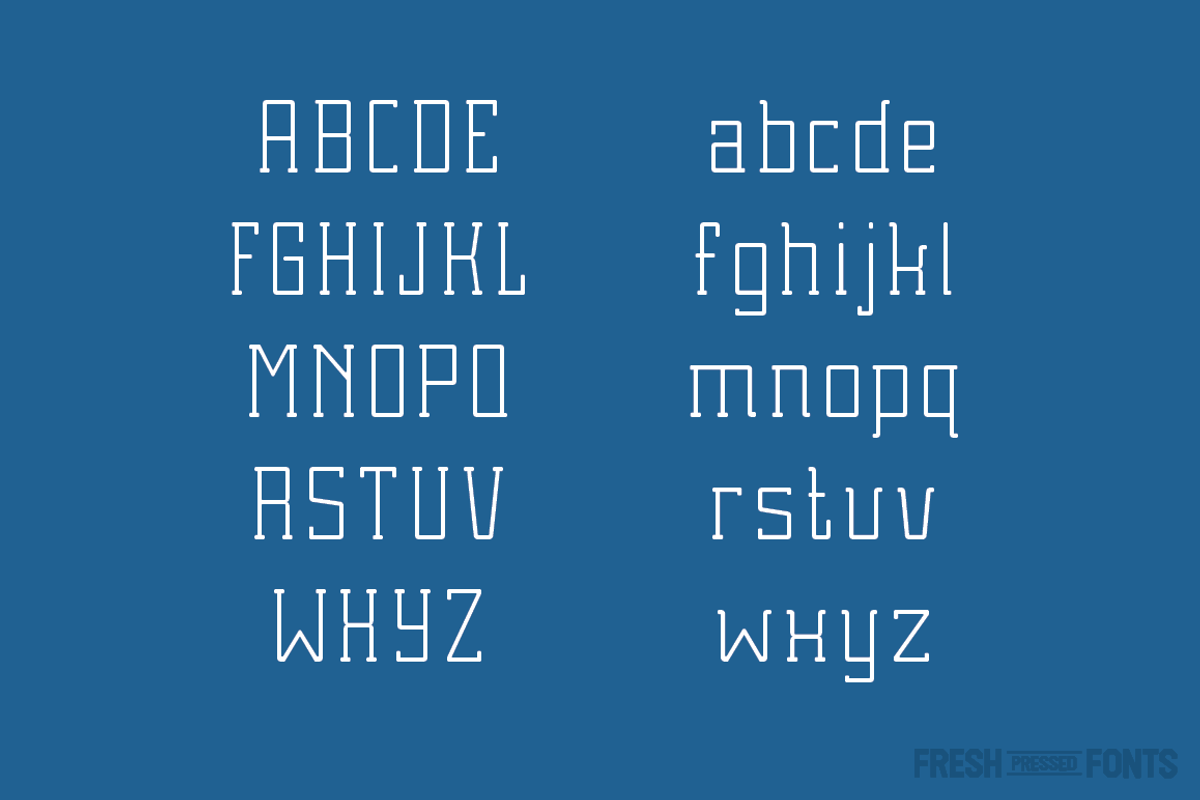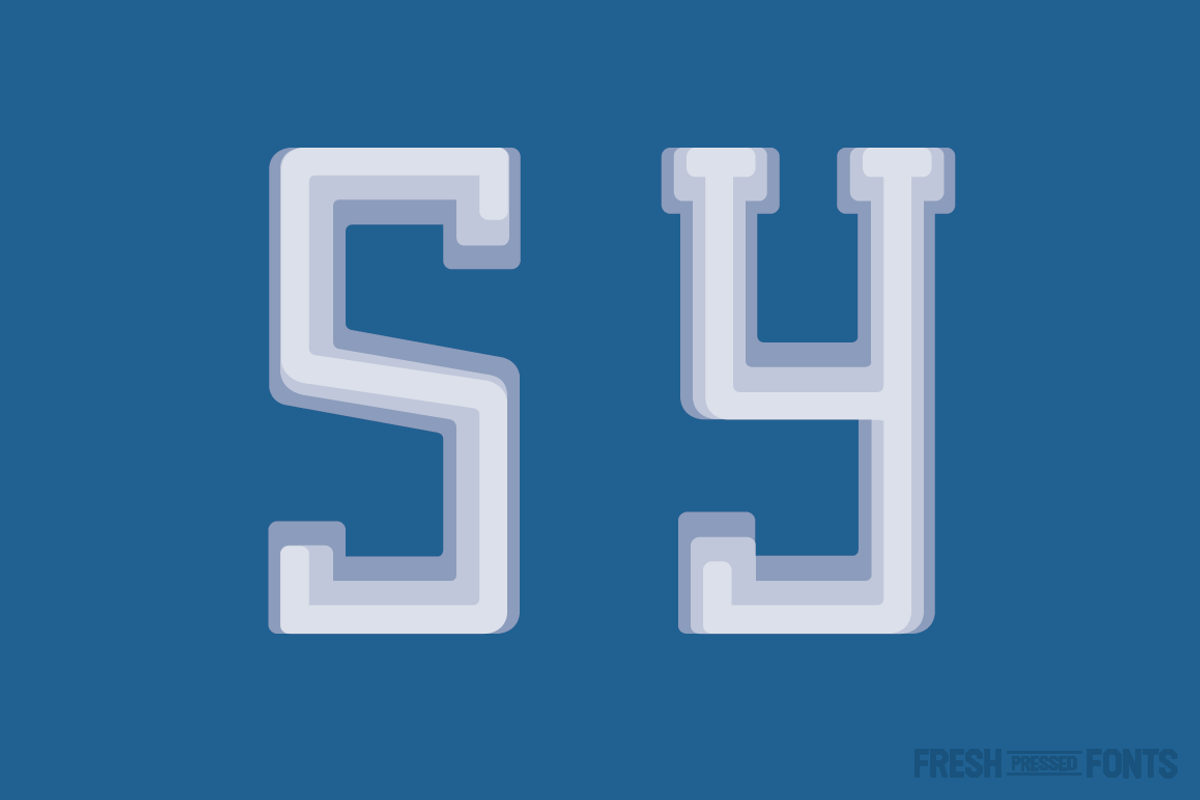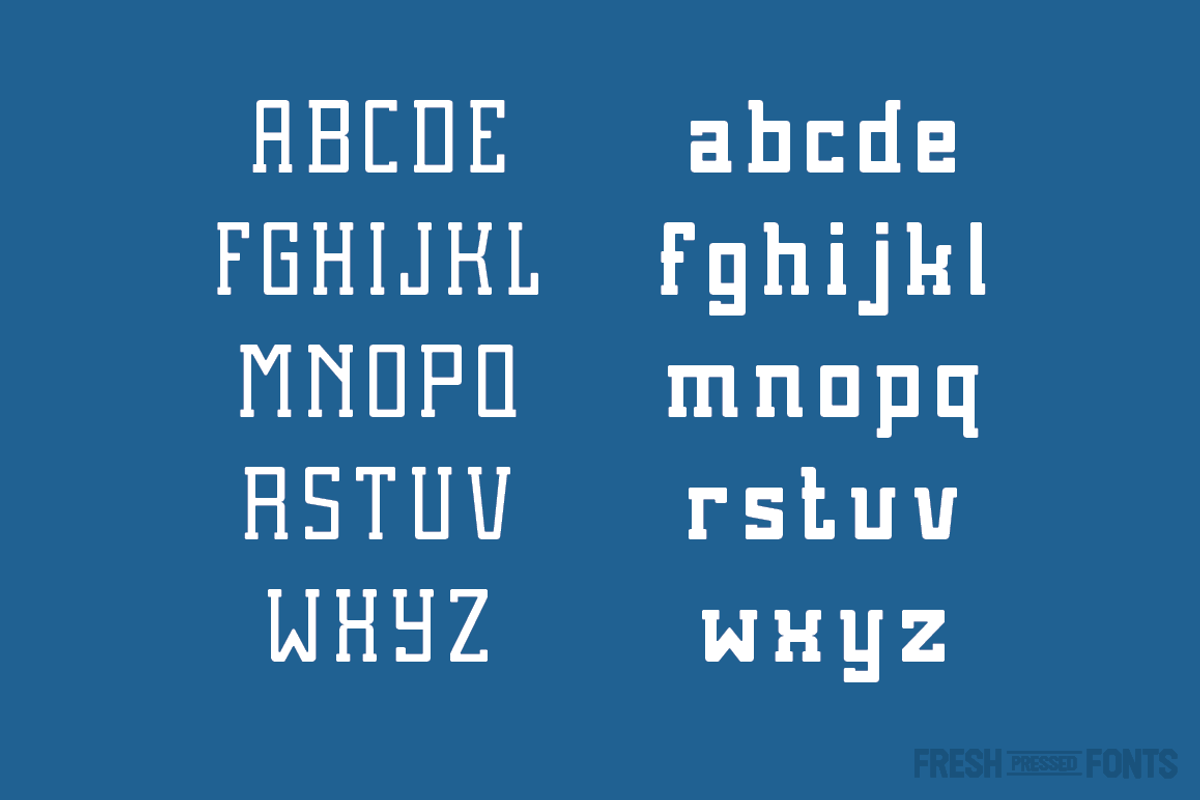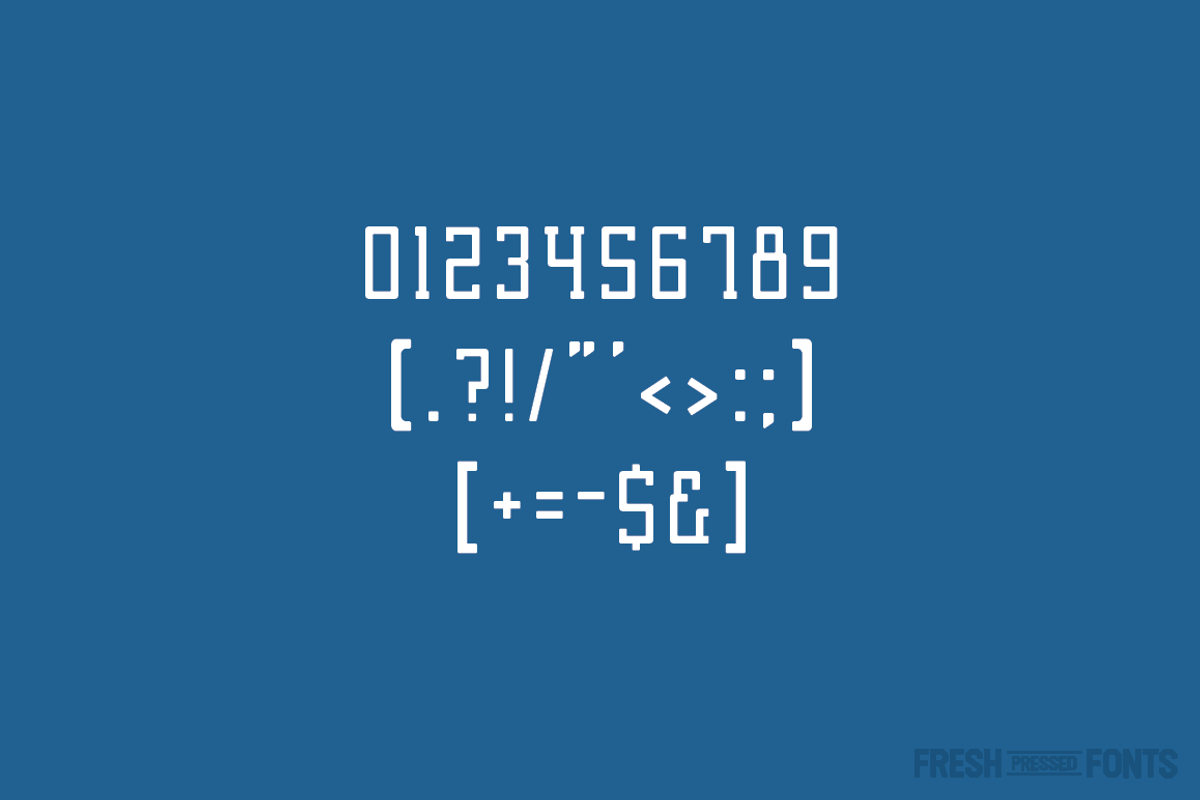
Brassie Family
Brassie Family by Fresh Pressed Fonts is a font selected for branding, posters, packaging, typography.
Why Brassie Family is worth a look
Brassie Family by Fresh Pressed Fonts fits naturally into Branding, posters, packaging, typography.